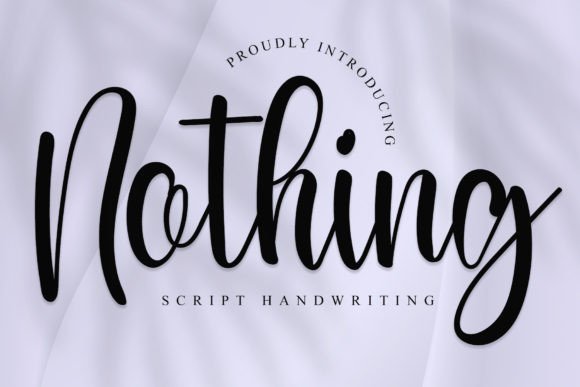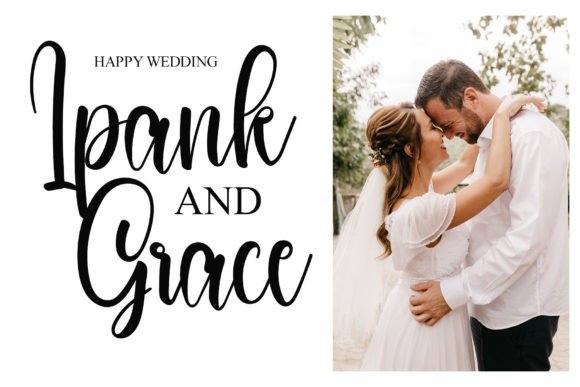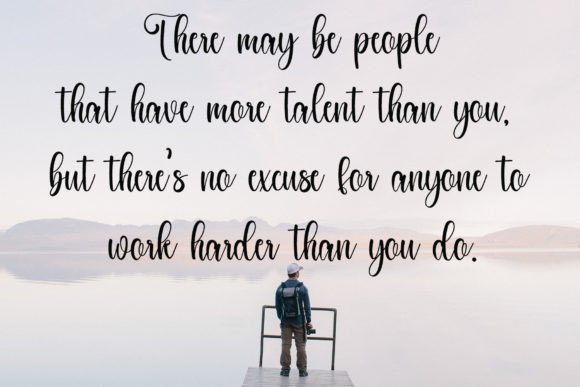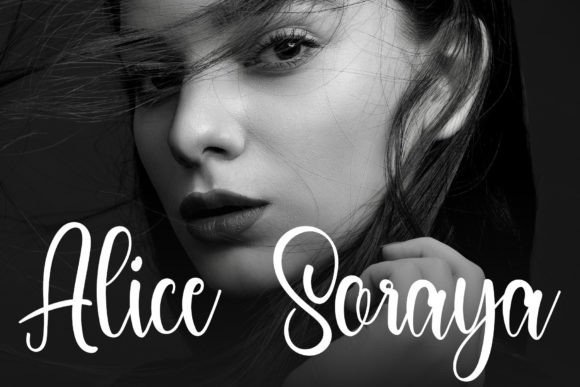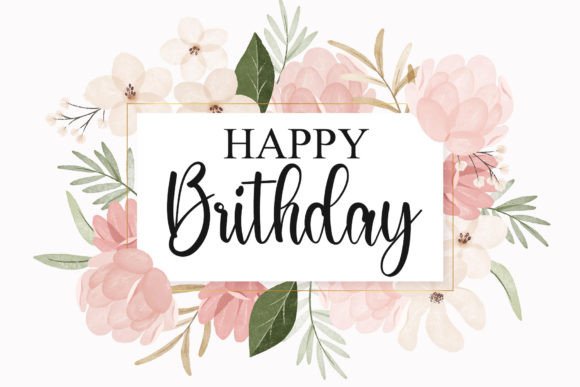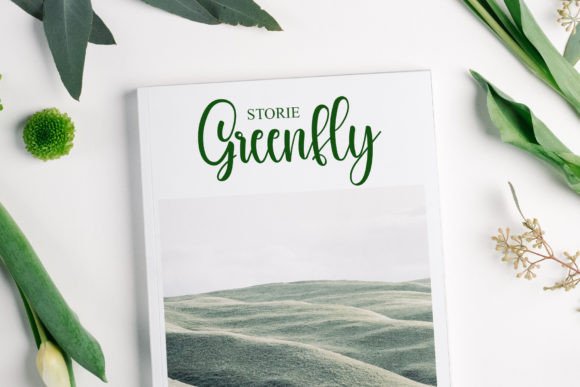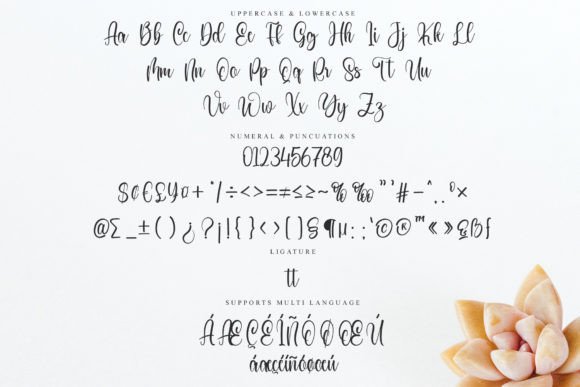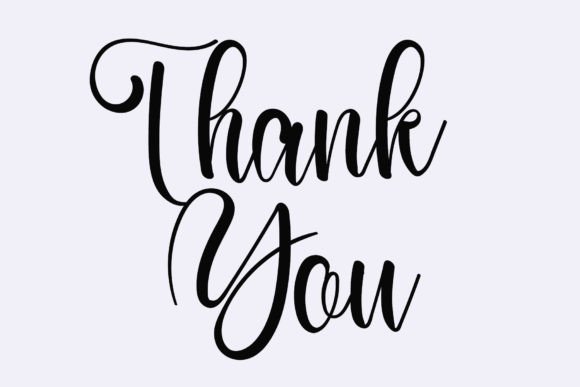
Nothing Font
About Nothing Font
“Nothing” is described as a stylish handwritten font with a contemporary atmosphere and impeccable form, inspired by timeless classic calligraphy. This balanced and varied font is specifically crafted to enhance the beauty of your design projects.
The charm of “Nothing” lies in its ability to blend contemporary design elements with the enduring elegance of classic calligraphy. This fusion of styles creates a font that exudes versatility and visual appeal, making it suitable for a wide range of design applications.
Whether you’re working on branding, logos, invitations, labels, or any creative endeavor, “Nothing” offers a sophisticated option to convey your message with style and refinement.
As you incorporate “Nothing” into your creative process, you’ll discover its remarkable ability to elevate your designs, making them visually captivating and memorable. This font becomes an invaluable tool for designers aiming to create projects that stand out and leave a lasting impression, with a touch of contemporary elegance.
In summary, “Nothing” is a stylish handwritten font that effectively merges contemporary aesthetics with classic calligraphy, resulting in a font that enhances the beauty of various design projects. Its balanced form and versatility make it an excellent choice for designers seeking to create visually appealing and refined work. Let “Nothing” be your creative choice, and witness how it enhances your designs, ensuring they radiate with elegance and a contemporary touch that sets them apart and leaves a lasting impact.